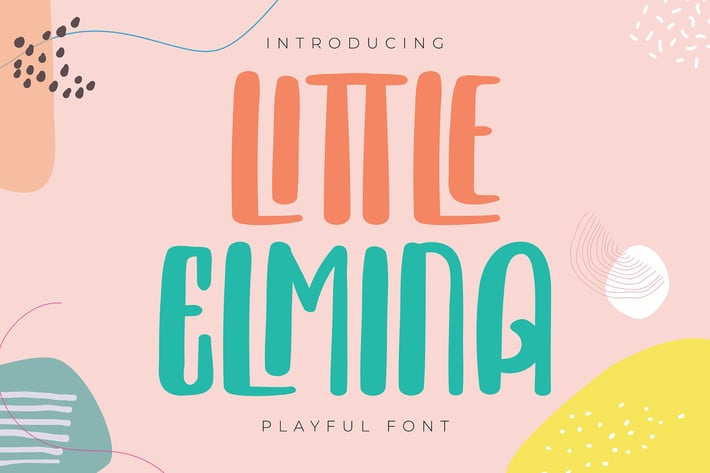
Little Elmina | Playful Font
Little Elmina | Playful Font with a calligraphy style, So beautiful on invitation like greeting cards, branding materials, business cards, quotes, posters, and more!